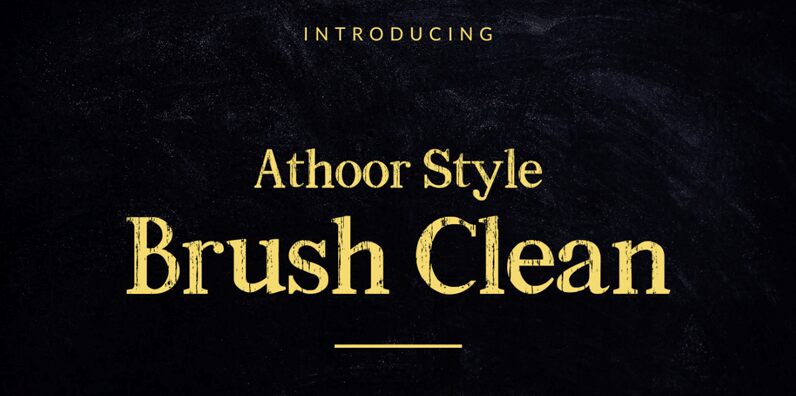
Athoor Style Brush Clean
Athoor Style Brush Clean font is an eroded serif typeface designed by Amrullah.
Athoor Style Brush Clean is a bold and unique display font. Add this font to your creative ideas and notice how it will make them stand out!